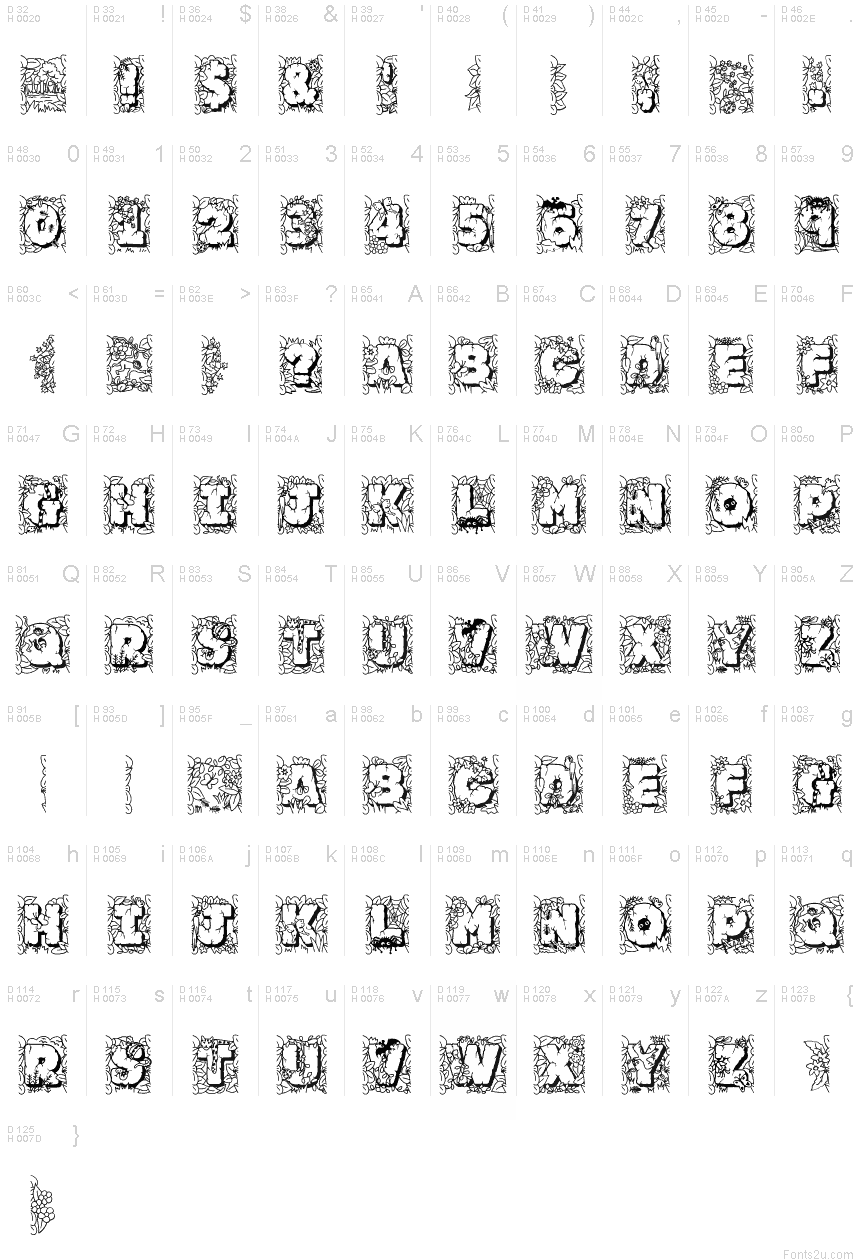
JFJungleRock
JF Jungle Rock font by Jester Font Studio is a free decorative display typeface that turns every word into a wild jungle scene. Chunky stone letters are wrapped in tangled vines, blooming flowers, and tiny bugs, creating a hand-drawn, coloring-book feel that’s full of motion and texture. The dense outlines and irregular edges give it a rugged, adventurous character that almost feels like you could brush dirt and leaves off the page.
Using JF Jungle Rock, headlines instantly become mini illustrations, so you can say more with fewer graphics. This free font works beautifully for kids’ party invitations, summer camp flyers, zoo or nature park posters, adventure-themed classroom decor, book covers, and playful packaging. Pair it with a clean, simple sans serif in smaller text and keep JFJungleRock big and bold for maximum impact.